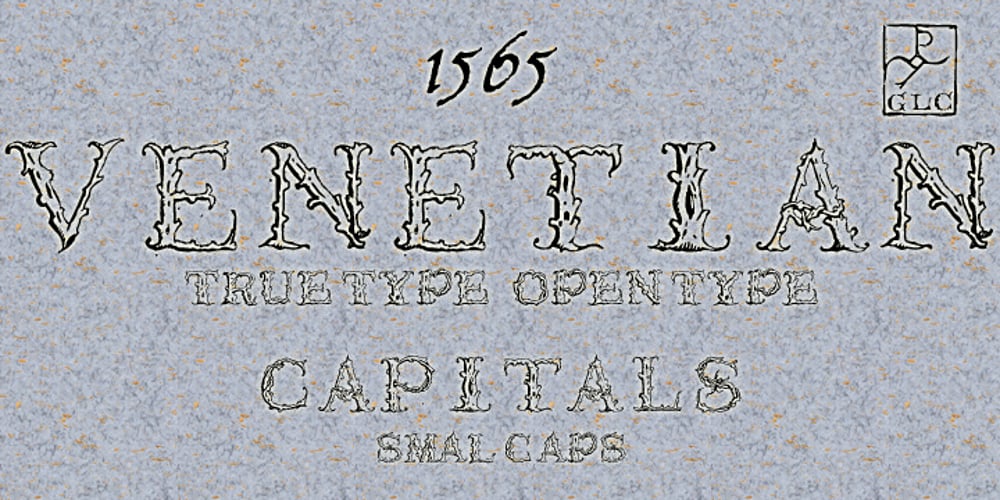
1565 Venetian Font Family was designed by published by GLC. 1565 Venetian contains 1 styles and family package options. This set of initial decorated letters is an entirely original creation, drawn inspired by Italian renaissance engraver Vespasiano Amphiareo’s paterns published in Venice circa 1568. It contains two roman alphabets : the first of large Initials, the second of small caps. Both containing thorn, eth, L & l slash, O & o slash. It can be used as variously as web-site titles, posters and flyers design, publishing texts looking like ancient ones, or greeting cards, all various sorts of presentations, as a very decorative, elegant and luxurious additional font… This font is conceived for enlargements remaining very smart and fine. The original height of the initials is at least about one inch equivalent to about four lines of characters, small caps may have the same height than the caps of the font used with, but cover two lines is better. This font may be used with all GLC blackletter fonts, but preferably with “1543 Humane Jenson”, “1557 Italic”, “1742 Civilite”, “1776 Independence” without any fear for doing anachronism.